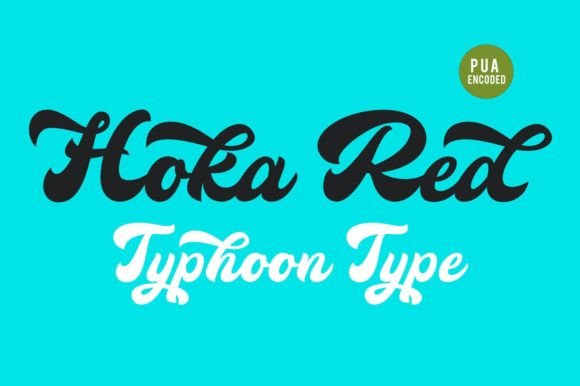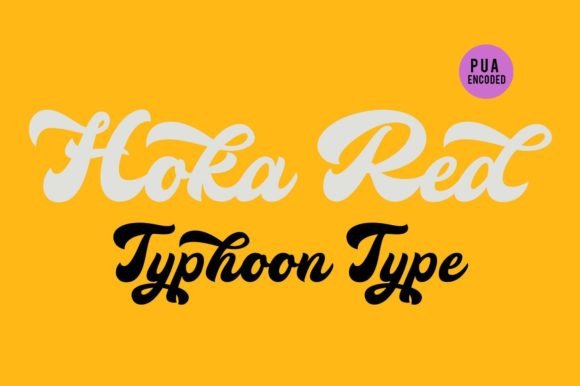
About Hoka Red Font
Hoka Red, a captivating Script & Handwritten font, adds a touch of elegance to a variety of design projects. Specifically crafted to enhance the aesthetic appeal of wedding invitations, thank-you cards, quotes, greeting cards, logos, business cards, and more, it seamlessly blends a handwritten charm with a stunning visual impact.
Ideal for wedding invitations, Hoka Red brings a romantic and personal touch to the celebration. Its flowing script and handwritten style create a beautiful harmony, setting the tone for a memorable event. The font’s versatility allows you to experiment with different layouts, ensuring that your invitations exude a unique and tailored charm.
Expressing gratitude becomes an art form with Hoka Red on thank-you cards. The font’s graceful strokes and carefully designed characters transform simple words of appreciation into a visual delight. Whether sending thanks for a gift, gesture, or support, Hoka Red adds a touch of sophistication to your expressions of gratitude.
Quotes take on a new level of visual appeal with Hoka Red. The font’s script style enhances the emotional impact of words, turning any quote into a work of art. Whether you’re creating inspirational content or showcasing memorable phrases, Hoka Red elevates the visual presentation, making your quotes stand out with a distinct and stylish flair.
Greeting cards come to life with Hoka Red’s handwritten touch. Whether it’s a birthday, anniversary, or special occasion, the font adds a personal and warm element to your messages. The PUA encoding ensures easy access to a variety of glyphs and swashes, allowing you to customize your greetings with artistic embellishments.
Logos designed with Hoka Red make a lasting impression. The combination of script and handwritten elements imparts a sense of authenticity and uniqueness to your brand. Whether your business exudes a modern or classic vibe, Hoka Red adapts effortlessly to capture the essence of your brand identity.
Business cards become memorable keepsakes with Hoka Red. The font’s stylish design adds a professional yet personalized touch, making your contact information more than just details—it becomes a visual representation of your brand’s identity.
Thanks to its PUA encoding, Hoka Red provides easy access to all its glyphs and swashes, offering a seamless experience for designers. This feature ensures that you can effortlessly incorporate decorative elements, flourishes, and unique characters into your designs, enhancing the overall visual appeal.
In summary, Hoka Red stands as a versatile and visually stunning Script & Handwritten font, tailored for projects that demand a handwritten touch. From wedding invitations to business cards, this font effortlessly elevates the visual appeal of your designs, adding a touch of sophistication and personalization to each project.